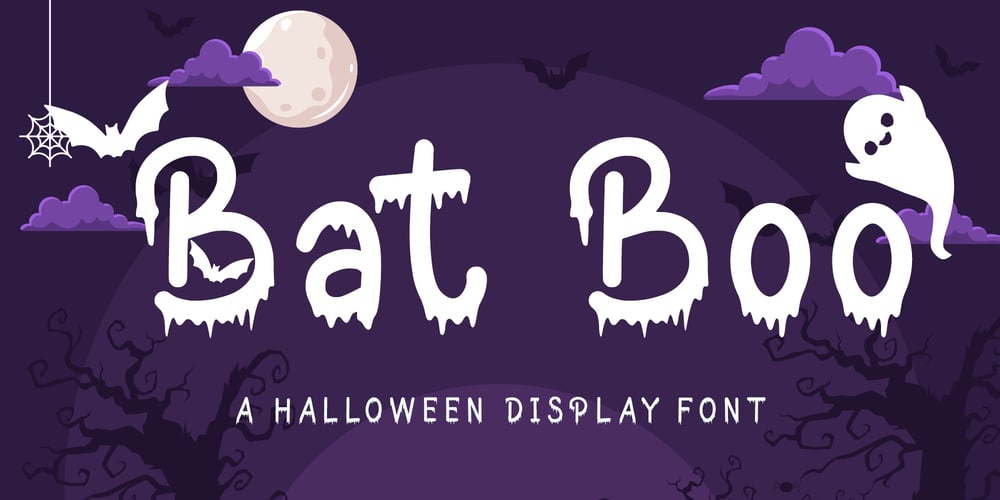
Bat Boo
Bat Boo font
Bat Boo Font Family was designed by Agung Eko Nugroho and published by AEN Creative Studio. Bat Boo contains 2 styles and family package options. Bat Boo is a cool and spooky display font. This font is PUA encoded which means you can access all of the glyphs and swashes with ease!Add it confidently to your favorite creations and let yourself be amazed by the outcome generated.